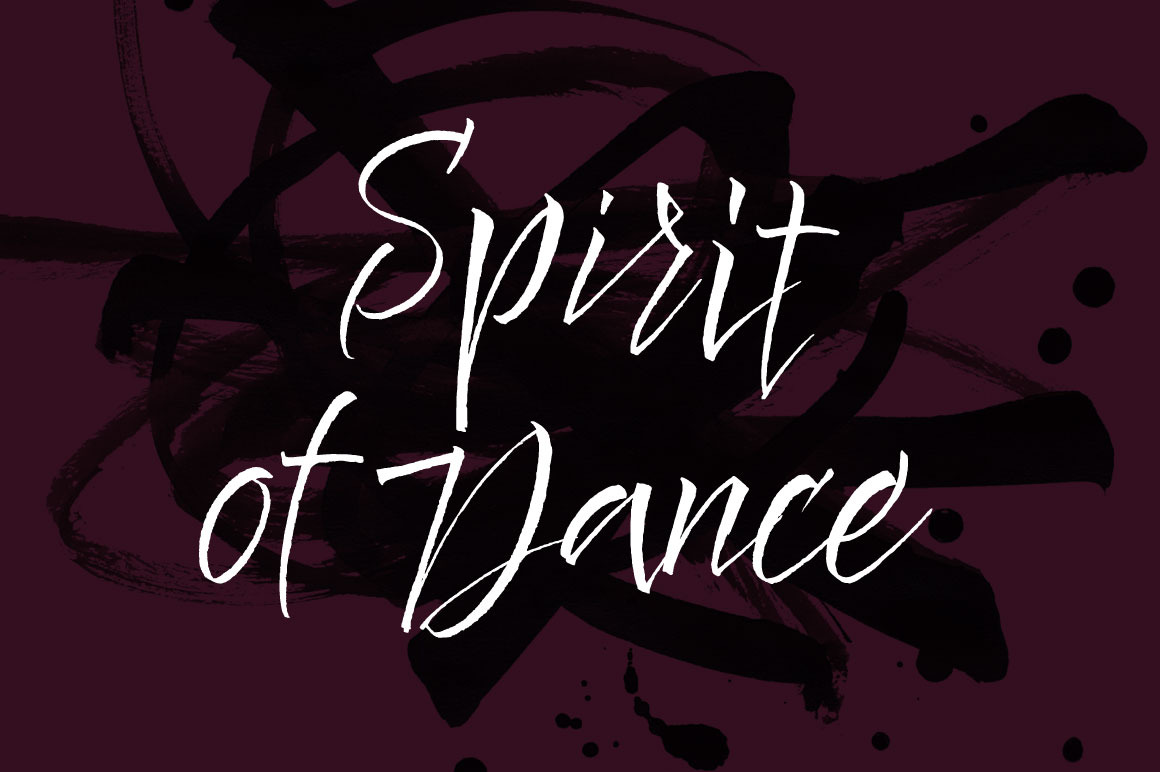
Spirit of Dance Font & Extras
About Spirit of Dance
Spirit of Dance is a full of flight and dance modern calligraphy font. Spirit of Dance is good for both short texts and headlines.